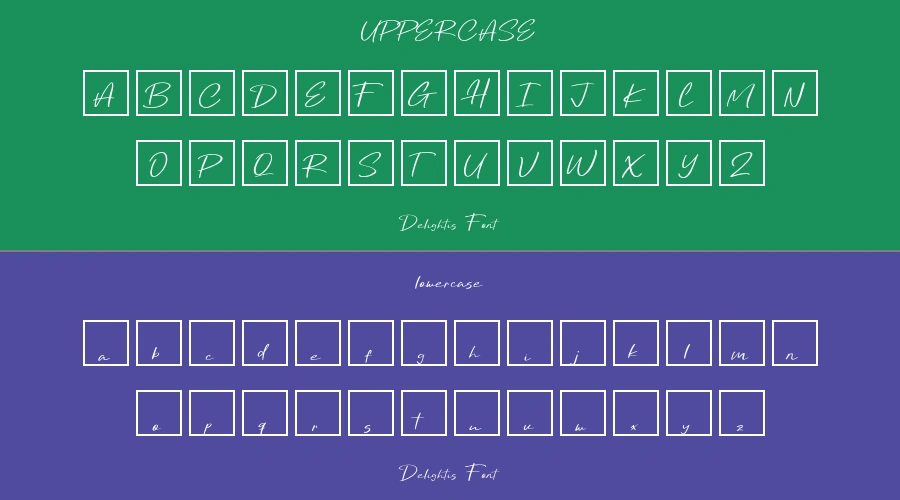
About Delightis Font
Delightis Font represents a sophisticated approach to type design, balancing distinctive details with professional grade. Perfect for presentation decks, this font family showcases impressive sophistication and cultural relevance throughout its character set. Designers appreciate its versatility and reliability.
Designers will appreciate nuanced touches including concave curves and standard ligatures, adding sophistication to any project. These features become apparent in pull quotes, where file efficiency matters most. The careful treatment of x-height and regulatory compliance ensures optimal performance.